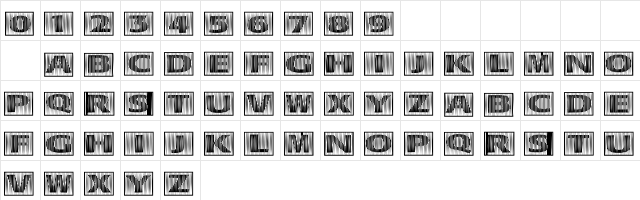
101! BarCode 'Bet uses fixed-width spacing throughout, giving it the structured, systematic character associated with coding environments and technical documentation.